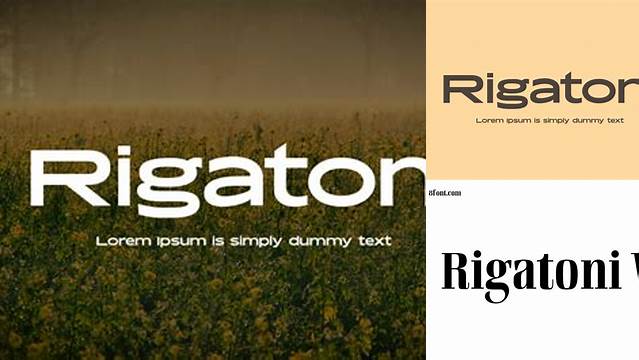
Are you looking to download rigatoni font for your Android device? You've come to the right place! In this comprehensive guide, we'll delve into everything you need to know about this stylish font, including its features, how to download it for free, and how to use it in your projects. Whether you're a designer, a developer, or simply someone who loves typography, this article will provide valuable insights into the world of rigatoni font.
What is Rigatoni Font?
Before we dive into the specifics of downloading and using rigatoni font, let's first understand what it is. Rigatoni is a modern and versatile typeface that is characterized by its clean lines, elegant curves, and unique personality. It's a sans-serif font, which means it doesn't have the small decorative strokes (serifs) that are found in some other fonts like Times New Roman or Garamond. This makes rigatoni font incredibly readable and suitable for a wide range of applications, from body text to headlines. Its contemporary design makes it a favorite among designers and creatives looking to add a touch of sophistication to their projects. The font exudes a friendly yet professional vibe, making it perfect for both casual and formal designs. Its geometric structure ensures clarity and legibility across various screen sizes and print formats, making it a reliable choice for any project. One of the key features of rigatoni font is its adaptability. It works seamlessly in digital environments, such as websites and mobile apps, as well as in print materials, like posters and brochures. This versatility makes it a valuable asset in any designer's toolkit. The font's clean appearance is especially beneficial for user interfaces, where readability is paramount. Moreover, rigatoni font’s unique character shapes give it a distinctive edge, helping your designs stand out while maintaining a professional look. The font family often includes multiple weights and styles, such as bold, italic, and light variations, providing even more flexibility in your design choices. By using these different styles, you can create visual hierarchy and add emphasis to your text, enhancing the overall impact of your design. In summary, rigatoni font is a stylish, versatile, and modern typeface that can significantly enhance the visual appeal of your projects. Its clean lines, readability, and adaptability make it an excellent choice for a wide range of applications, solidifying its place as a favorite among designers and creatives.
Key Features of Rigatoni Font
Rigatoni font boasts several key features that make it a popular choice among designers and typographers. Its modern aesthetic, combined with its functional design, makes it an excellent choice for various projects. Let's explore some of the standout features:
Clean and Modern Design: Rigatoni font has a contemporary design that appeals to a wide audience. Its clean lines and geometric shapes give it a polished and professional look, making it suitable for both digital and print media. The simplicity of the font ensures that it remains readable even at small sizes, which is crucial for body text and user interfaces. Furthermore, its modern aesthetic helps to create a sleek and up-to-date feel in any design, making it ideal for projects that need to convey a sense of innovation and style. The font’s minimalist approach means it pairs well with other fonts and design elements, giving designers the flexibility to create cohesive and visually appealing layouts.
Excellent Readability: One of the most crucial aspects of any font is its readability. Rigatoni excels in this area, thanks to its well-defined letterforms and balanced spacing. Whether used in headlines or body text, rigatoni font ensures that your message is easily understood. Its clarity makes it a great choice for websites, mobile apps, and printed materials, where clear communication is essential. The even strokes and consistent letter heights contribute to its readability, reducing eye strain and making it comfortable to read for extended periods. This is particularly important for longer pieces of text, such as articles or reports, where reader engagement is crucial. The font’s readability also stems from its careful design, which takes into account factors such as the size and shape of the counter spaces (the empty areas within letters) and the overall visual balance of each character.
Versatility: Rigatoni font's versatility is another significant advantage. It can be used in a variety of design contexts, from branding and advertising to web design and mobile app development. Its adaptability makes it a valuable asset for any designer. The font's neutral yet stylish appearance allows it to blend seamlessly into different design styles, whether you’re aiming for a minimalist, corporate, or creative look. Its versatility also extends to the types of projects it can be used for. From logos and marketing materials to user interfaces and editorial layouts, rigatoni font can handle it all. This adaptability is enhanced by the availability of different weights and styles within the font family, such as bold, italic, and light, which provide additional flexibility for designers. The ability to use the same font across various applications ensures consistency in branding and design, which is crucial for creating a professional and cohesive image.
Multiple Weights and Styles: The rigatoni font family typically includes multiple weights and styles, such as regular, bold, italic, and light. This gives designers the flexibility to create visual hierarchy and add emphasis to their text. The different weights allow you to differentiate between headings and body text, while the italic style can be used to highlight specific words or phrases. Having a variety of styles within the same font family ensures that your design remains consistent and professional. The ability to mix and match these styles can significantly enhance the visual appeal of your layouts and help to guide the reader’s eye through the content. The range of weights and styles also makes rigatoni font suitable for different design contexts, from minimalist designs that require a light touch to bold designs that need a strong visual impact. This adaptability is a key reason why rigatoni font is a popular choice for designers looking for a reliable and versatile typeface.